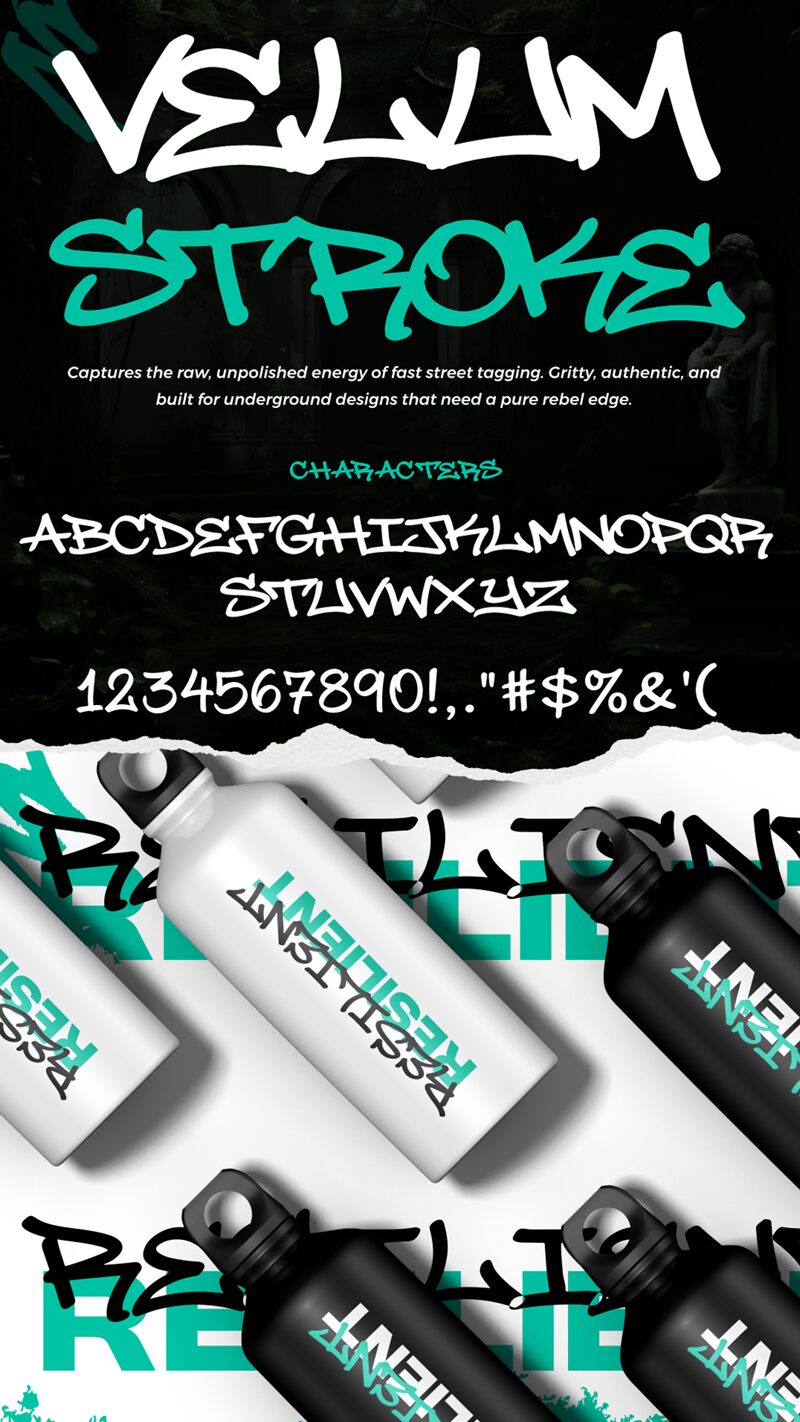
Velum Stroke font is the invention of Cikareotype Studio, a single-style font that’s free for personal use. The font design combines many elements, presenting a modern take on the graffiti lettering with a rebellious, energetic, and street-inspired touch. Its underground edgy-style visuals have a grungy vibe that forms an artistic font with an impressively professional finish.
Urban in their nature, the letters are suitable for posters, book covers, postcards, social media posts, and many other print or digital creations. You can get creative with the words and sentences at hand and even use them for branding purposes. If your project is low-budget or just for learning, using this font is an instant go-to option.